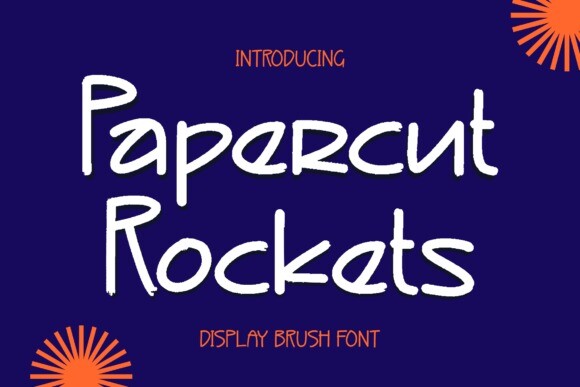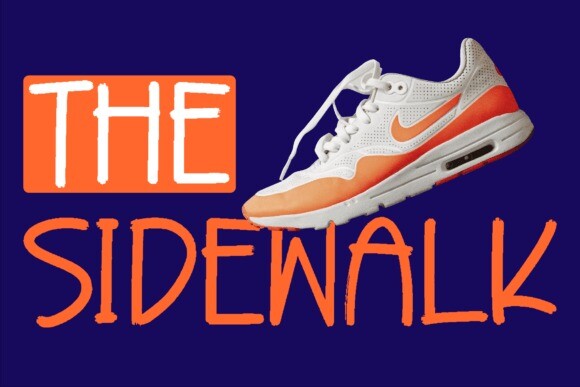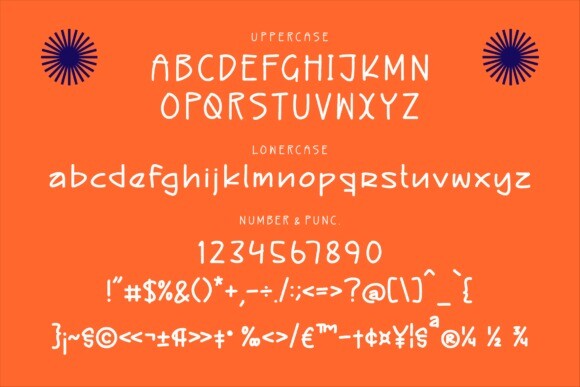
Papercut Rockets Font
Papercut Rockets Font – Display Brush Font , from Letterfabric Studio, suitable for any projects such as: logos, branding projects, homeware designs, product packaging, mugs, quotes, posters, shopping bags, t-shirts, book covers, name card, invitation cards, greeting cards, label, photography, watermark, special events, and all your other lovely projects that need a beautiful script taste.